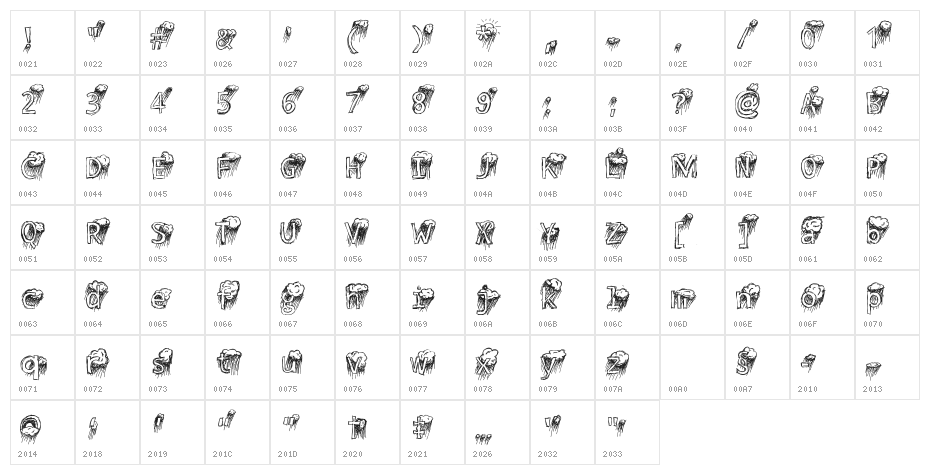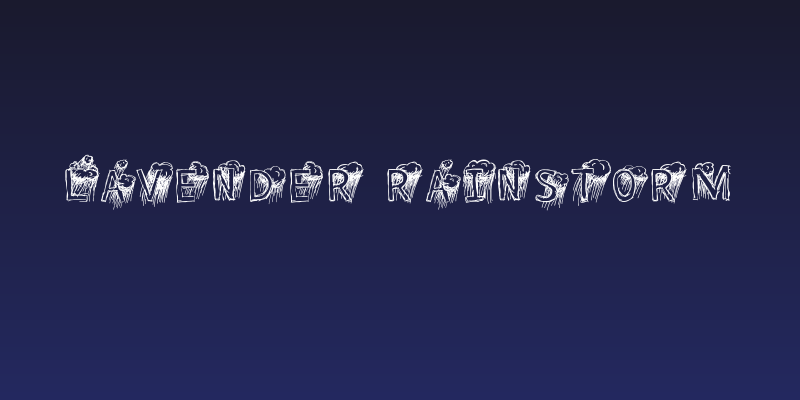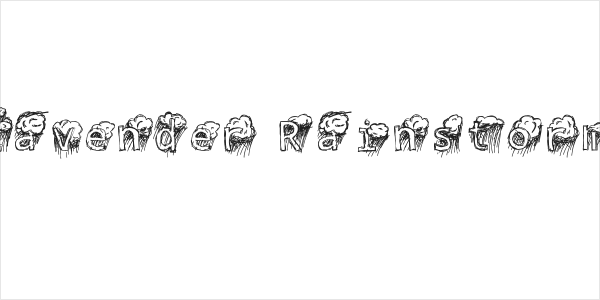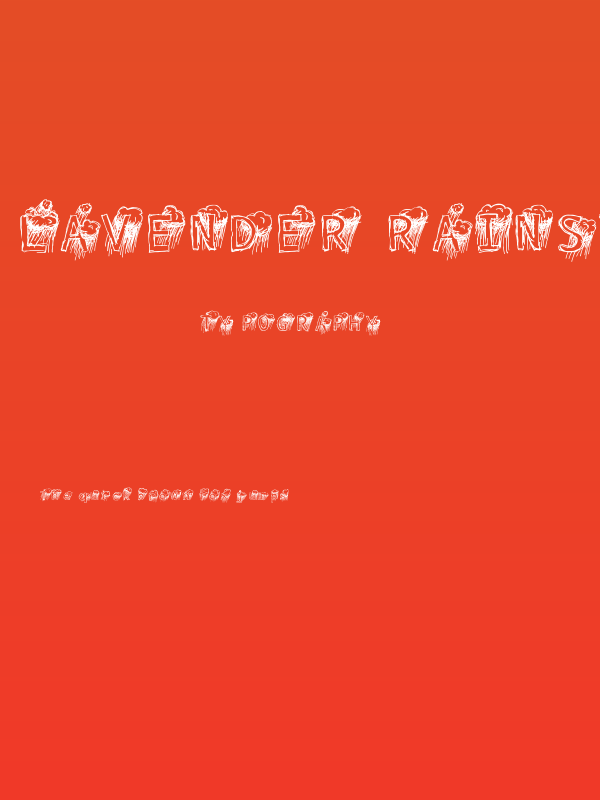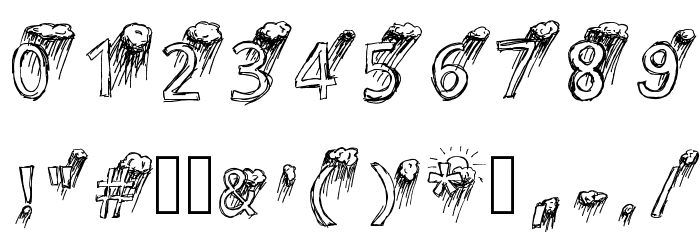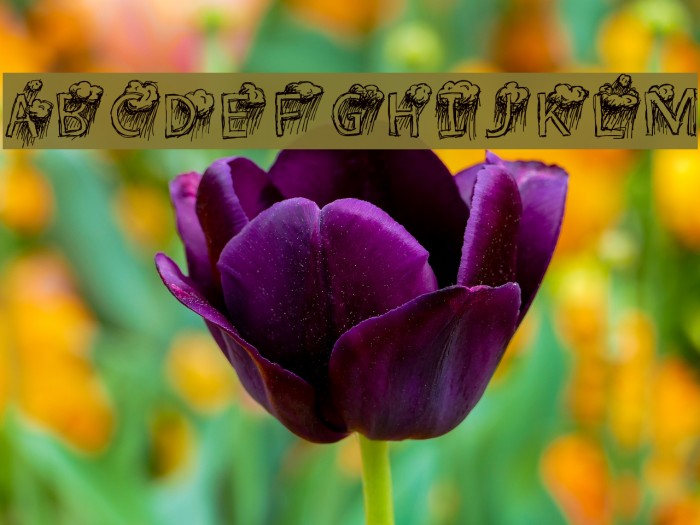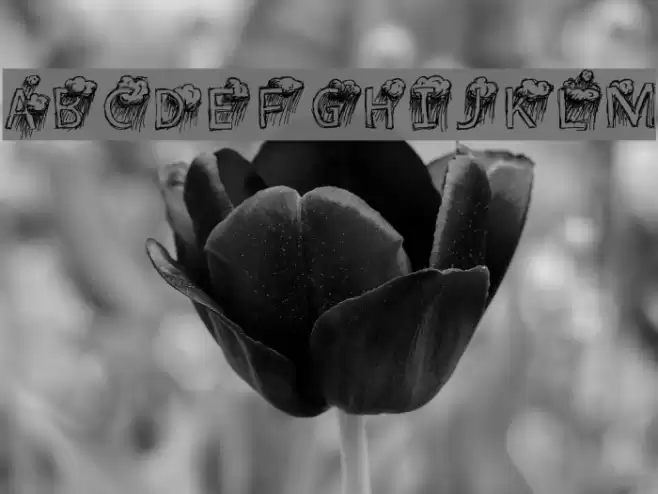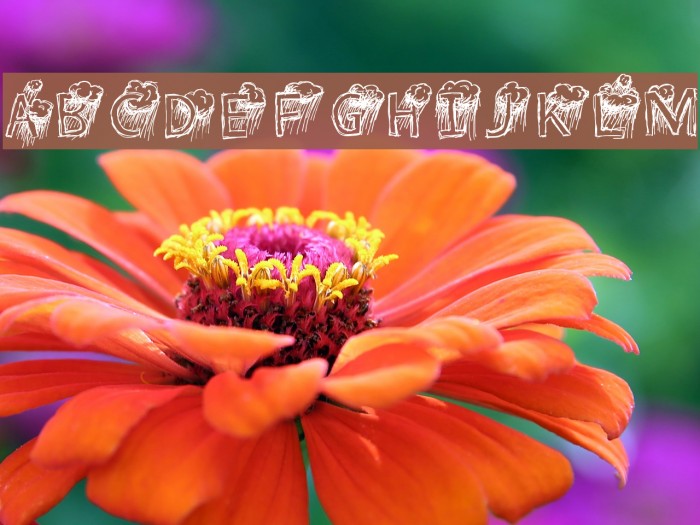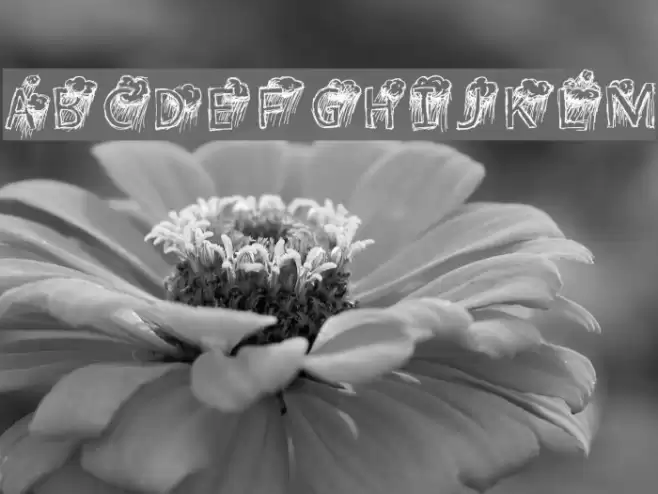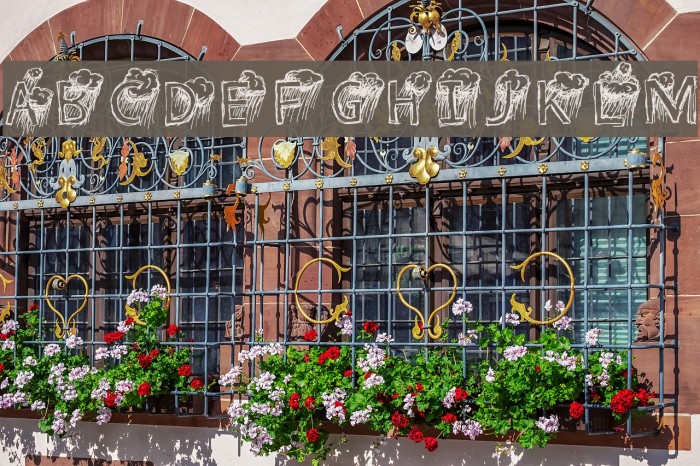
Lavender Rainstorm Font
| Style général | Whimsical, Artistic |
| Projets proposés | Ideal for children's books, playful branding, greeting cards, and creative posters. |
| Auteur | Fonts by Justin Callaghan |